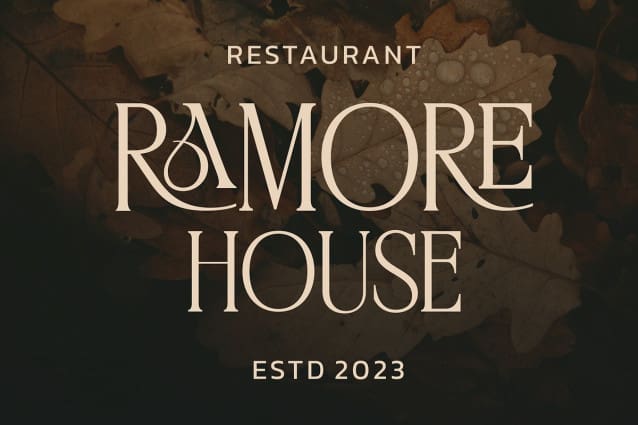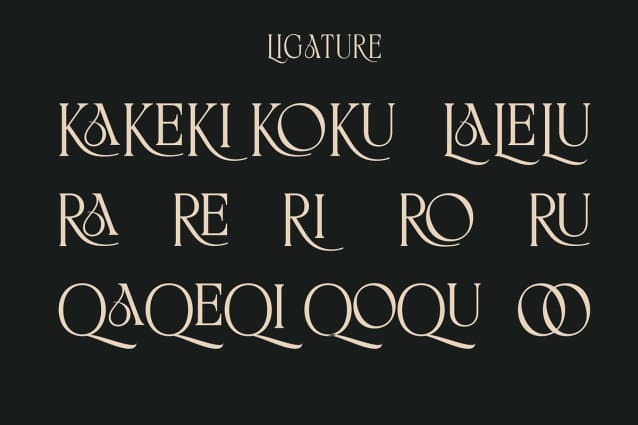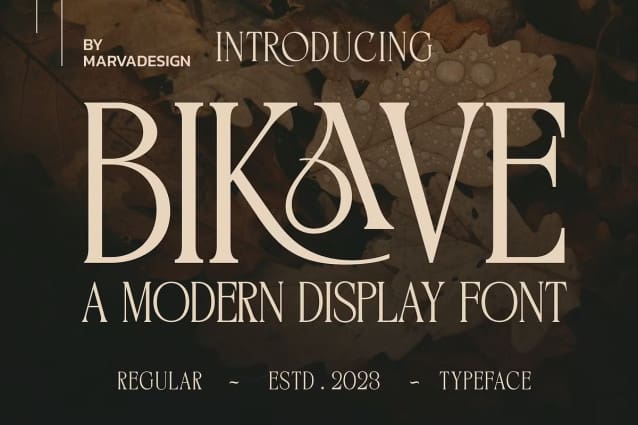
Bikave Font
Bikave Font – Modern Font is a bold and authentic display font. The font is suitable for any branding project like logo, t-shirt printing, Product and many more. outstanding in a wide range of contexts.